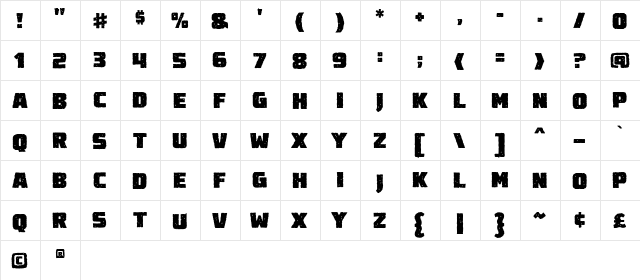
Destroy Earth Rough BB Regular
| Foundry | Nate Piekos. Blambot.com |
| Designer | Nate Piekos |
Design Context for Destroy Earth Rough BB Typeface
Destroy Earth Rough BB embraces imperfection — its rough, textured character adds raw authenticity to designs that want to feel lived-in and unconventional.
A strong fit for alternative music projects, graffiti-adjacent design, and anything that deliberately resists polish.
Pro Tip: Use Destroy Earth Rough BB at larger sizes where the texture and irregularity of each letterform can be clearly seen — it loses its character at small sizes.